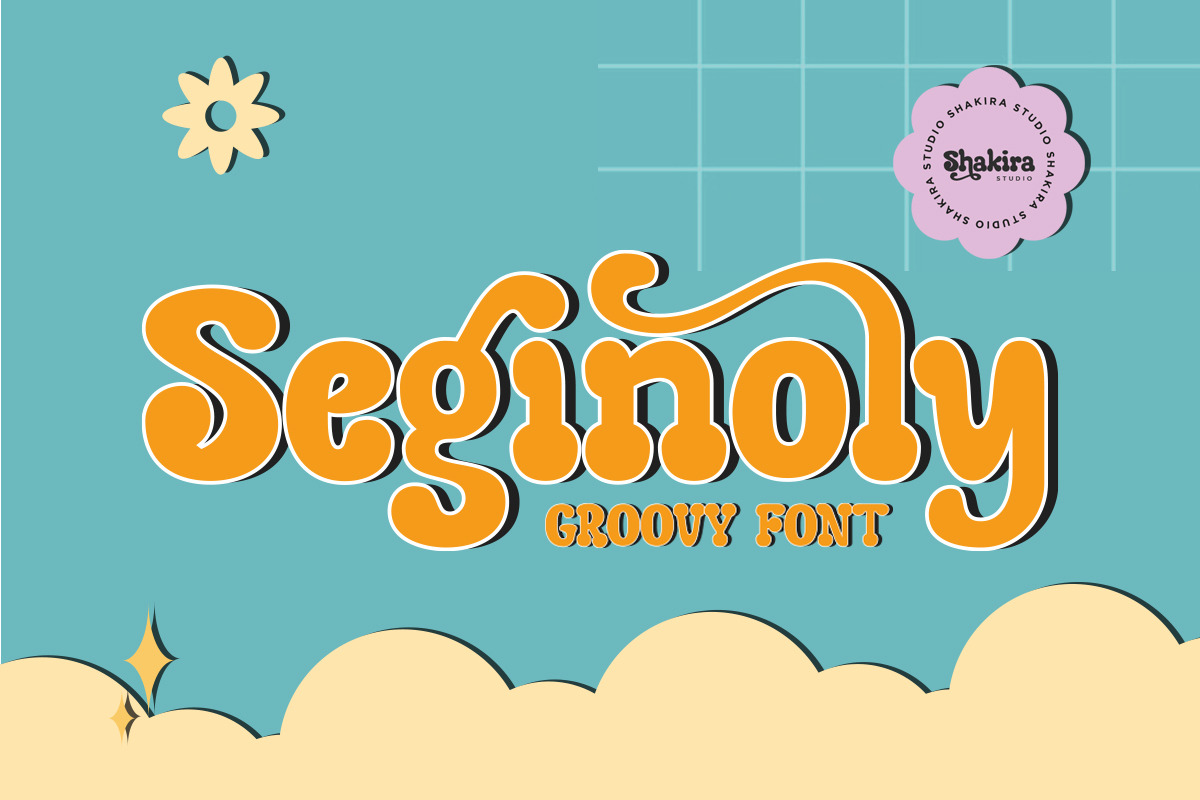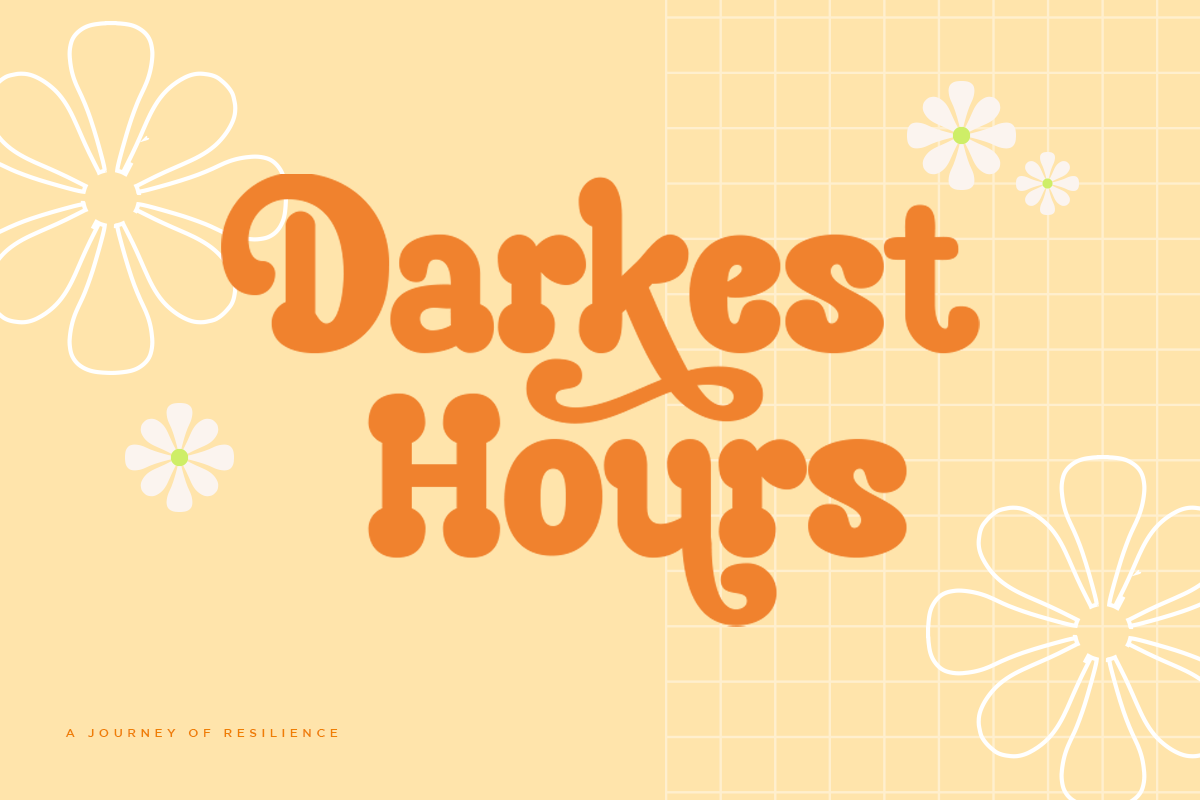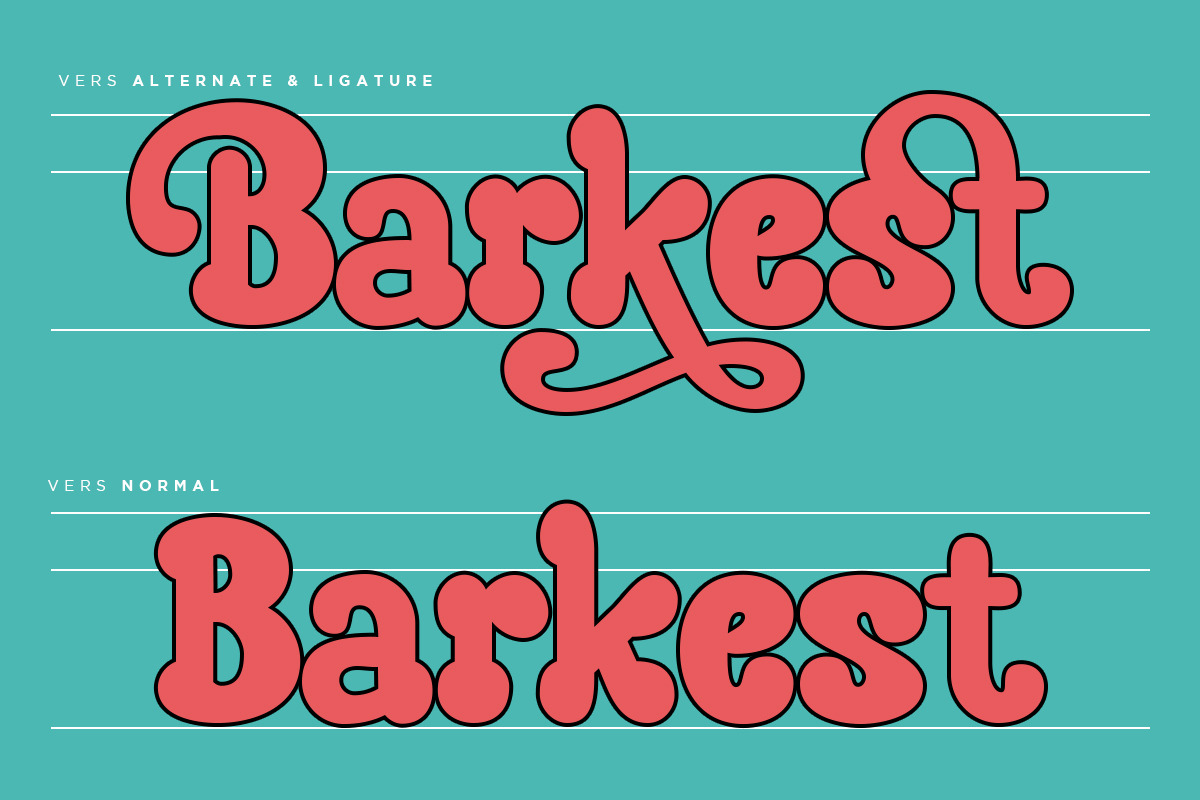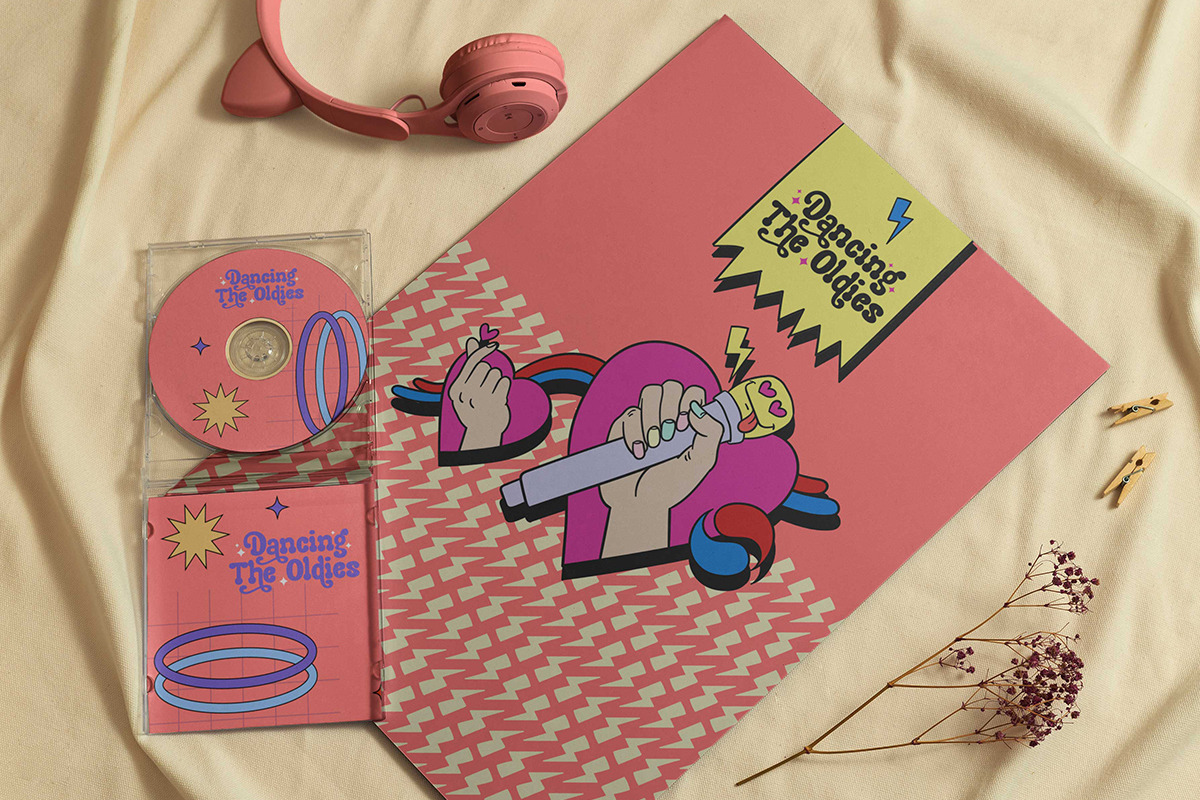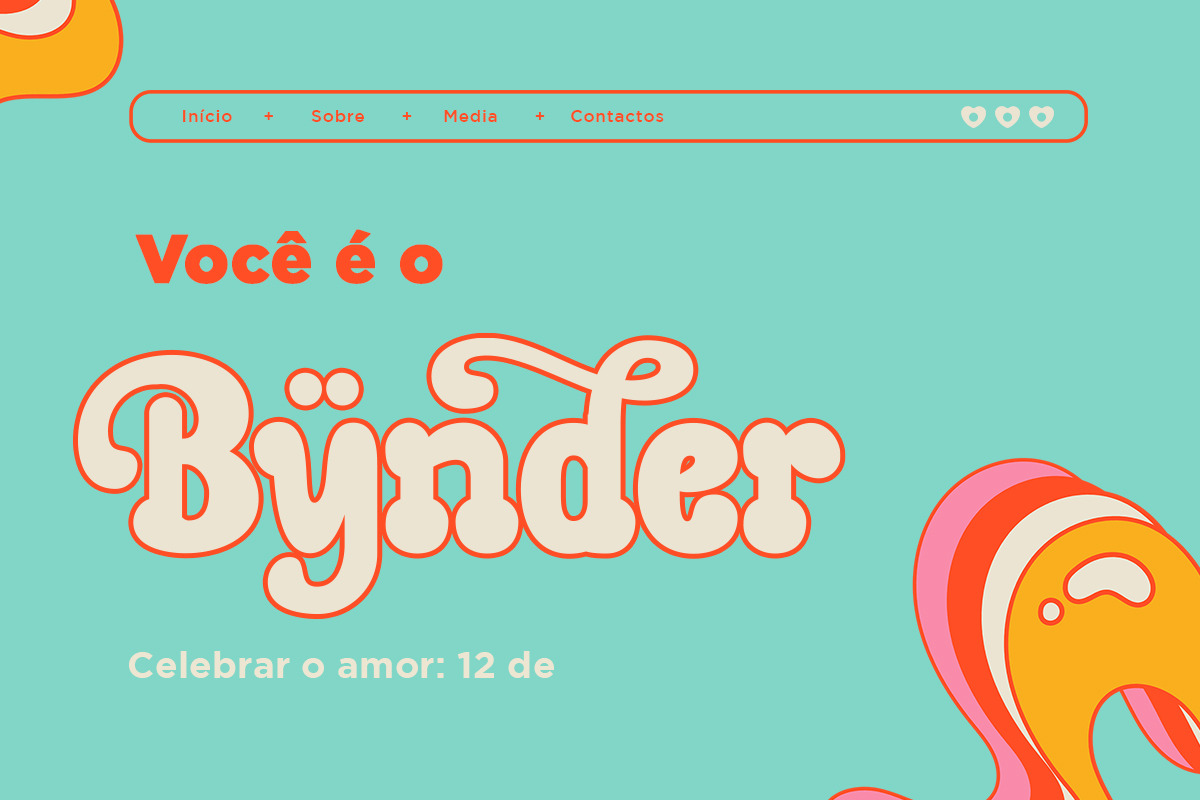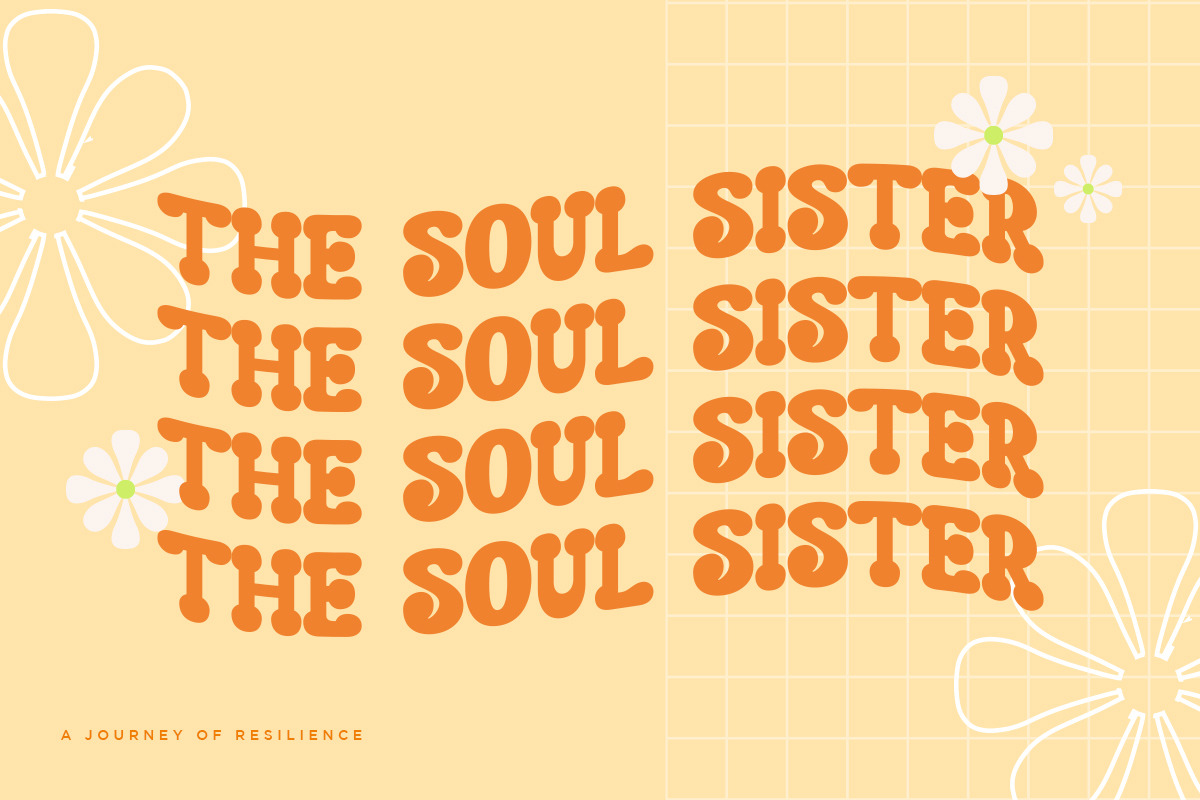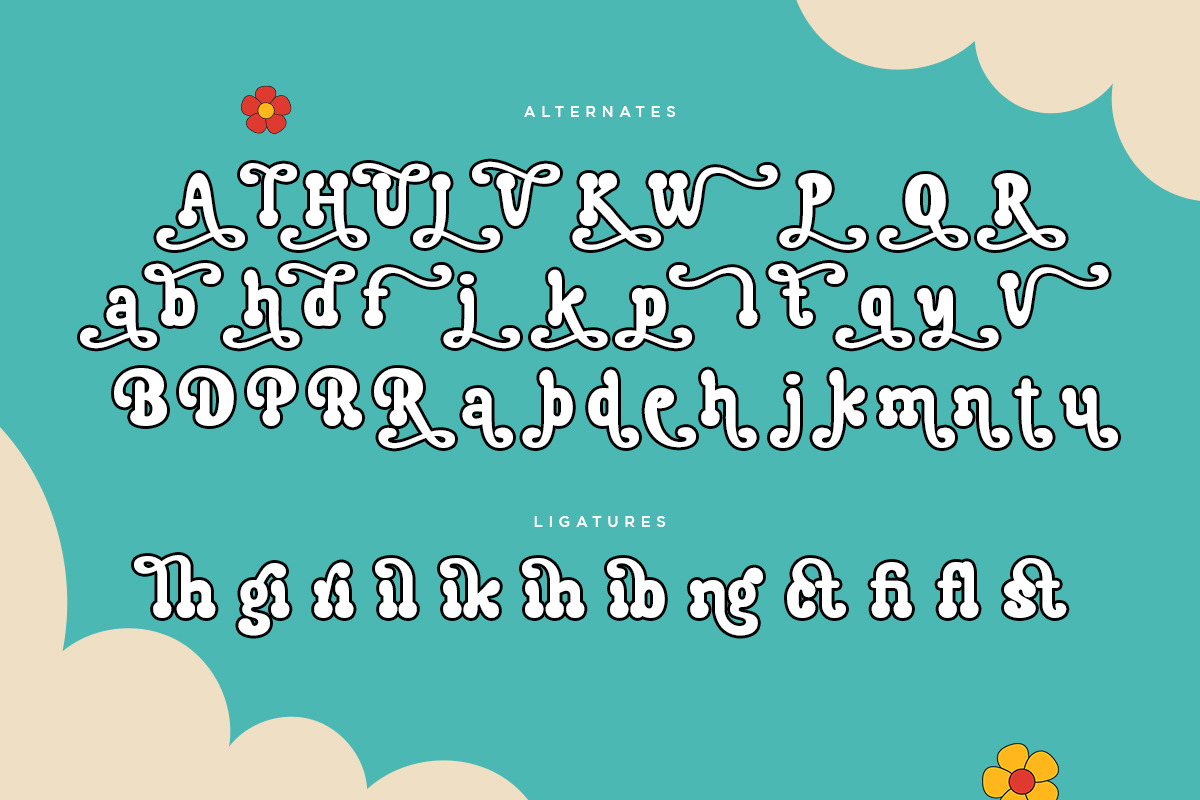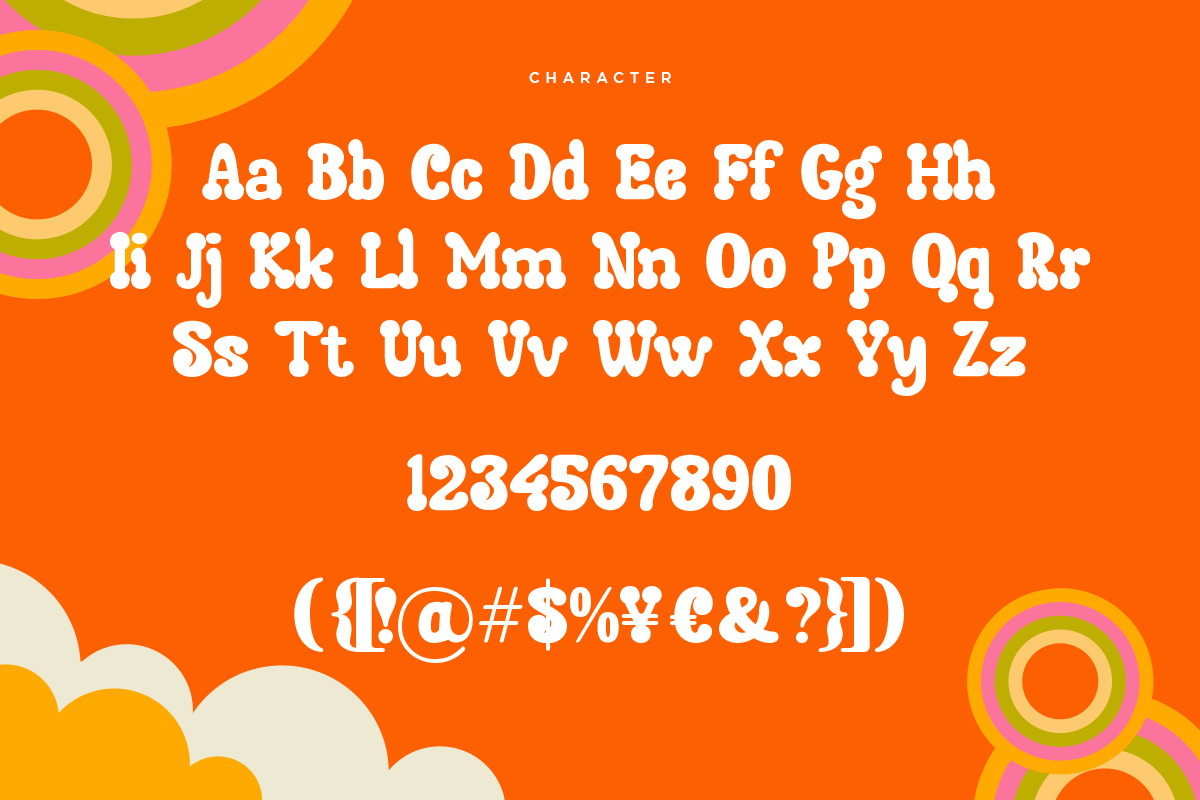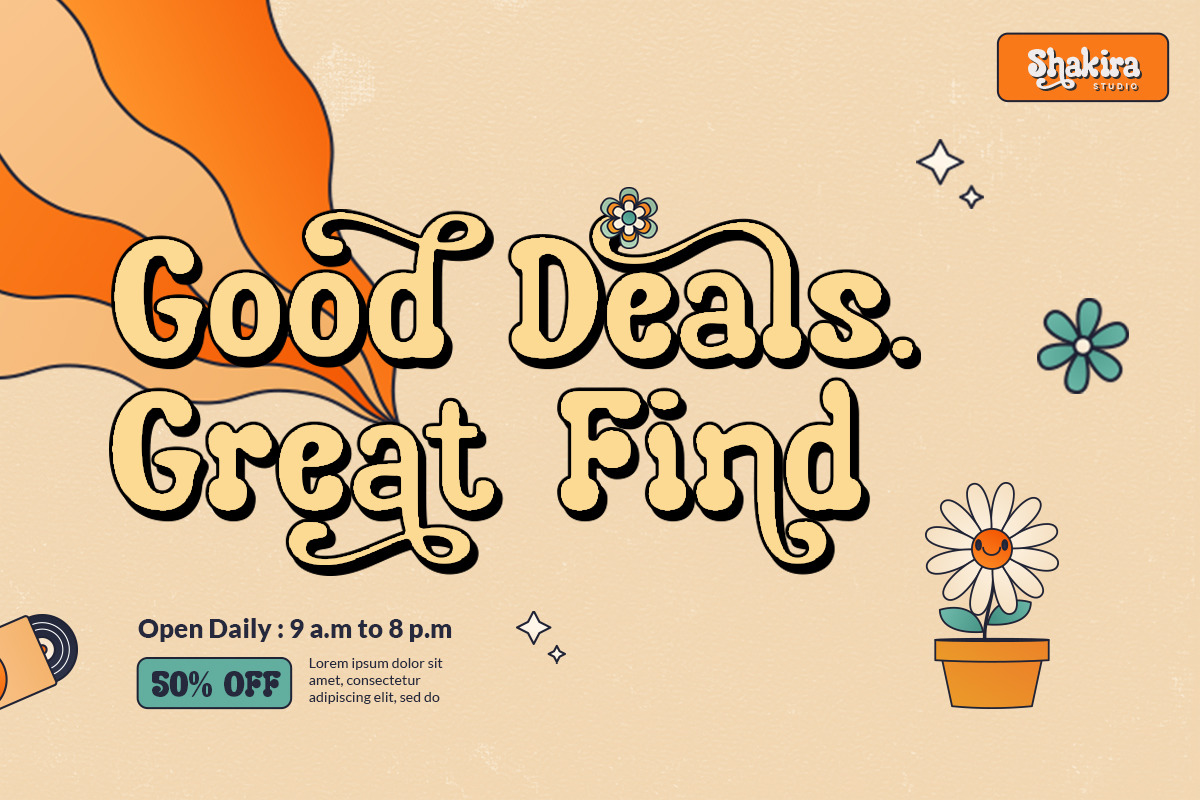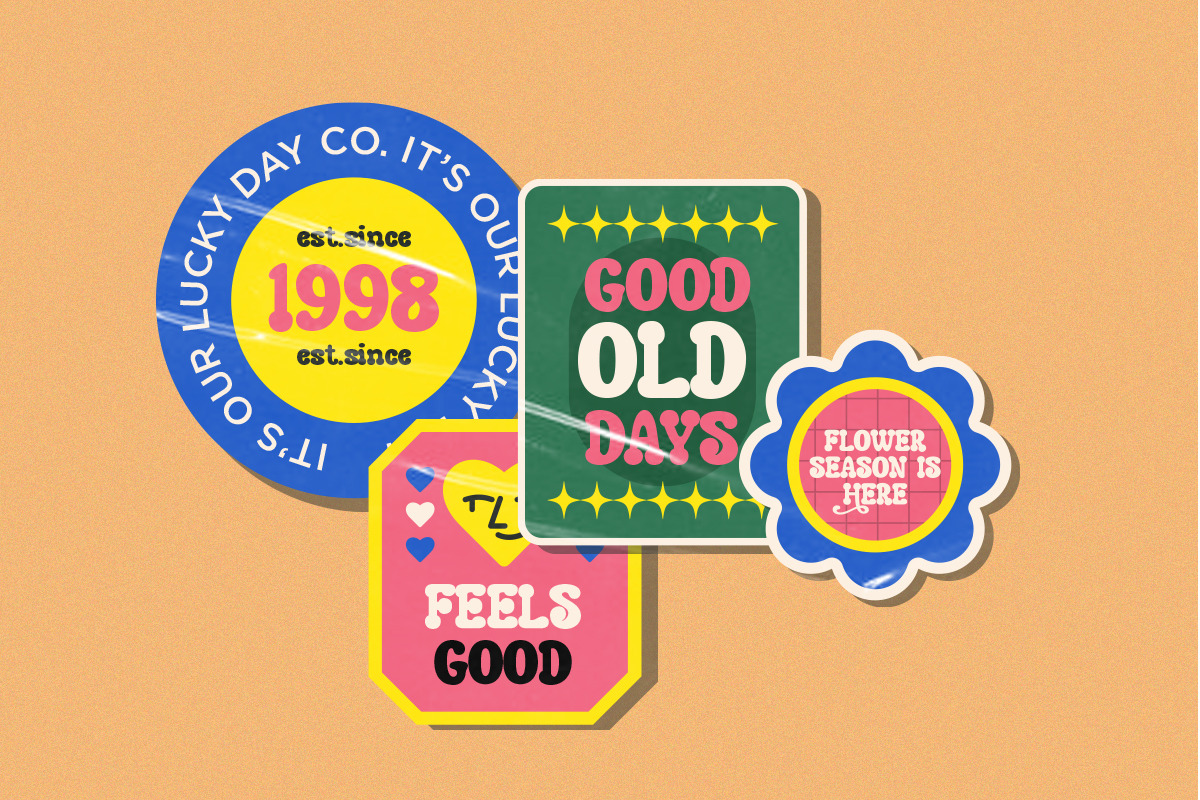
Seginoly - Retro Groovy Font
Introducing Seginoly - Your Groovy Retro Font for the Ultimate Vintage Vibe!
Seginoly is the font that's turning heads in the design world, capturing the essence of retro coolness that's all the rage right now.
Each letter in Seginoly is a work of art, inspired by the iconic styles of the past and carefully crafted to exude retro vibes that are currently in high demand.
With Seginoly, you have the power to transform your designs into eye-catching, retro masterpieces. Whether you're working on a funky poster, a nostalgic logo, or a retro-inspired website, this font adds that extra touch of vintage authenticity that's currently a hit in design trends.
- All Multilingual symbol
- Opentype features ( ligature, alternate )
Multilingual character supports : (Afrikaans, Albanian, Catalan, Croatian, Czech, Danish, Dutch, English, Estonian, Finnish, French, German, Hungarian, Icelandic, Italian, Lithuanian, Maltese, Norwegian, Polish, Portuguese, Slovenian, Spanish, Swedish, Turkish, Zulu)